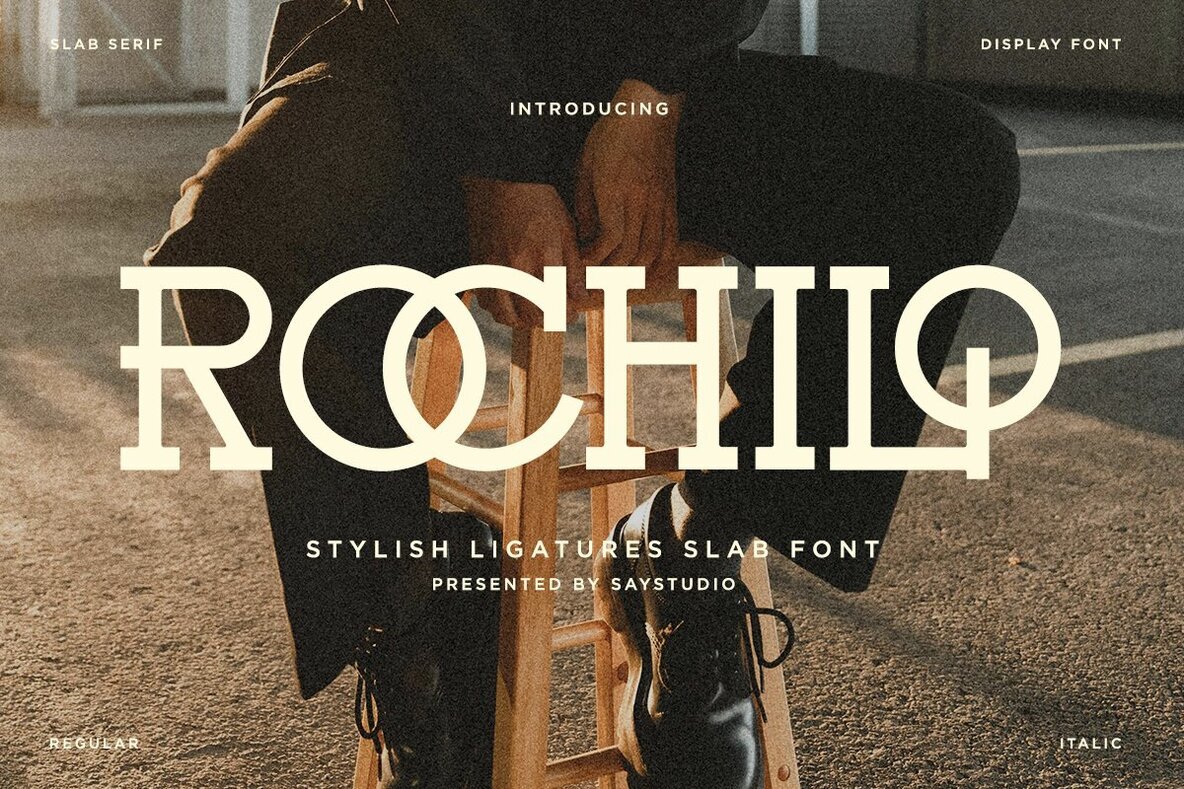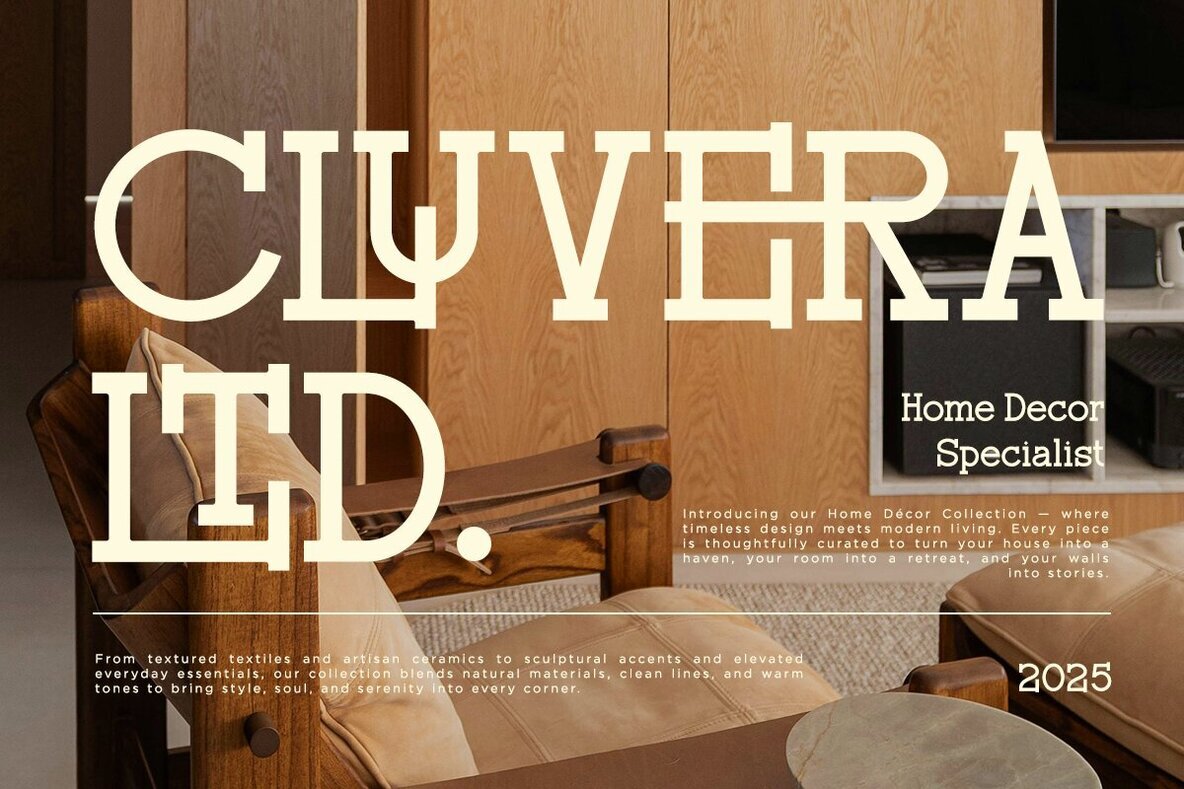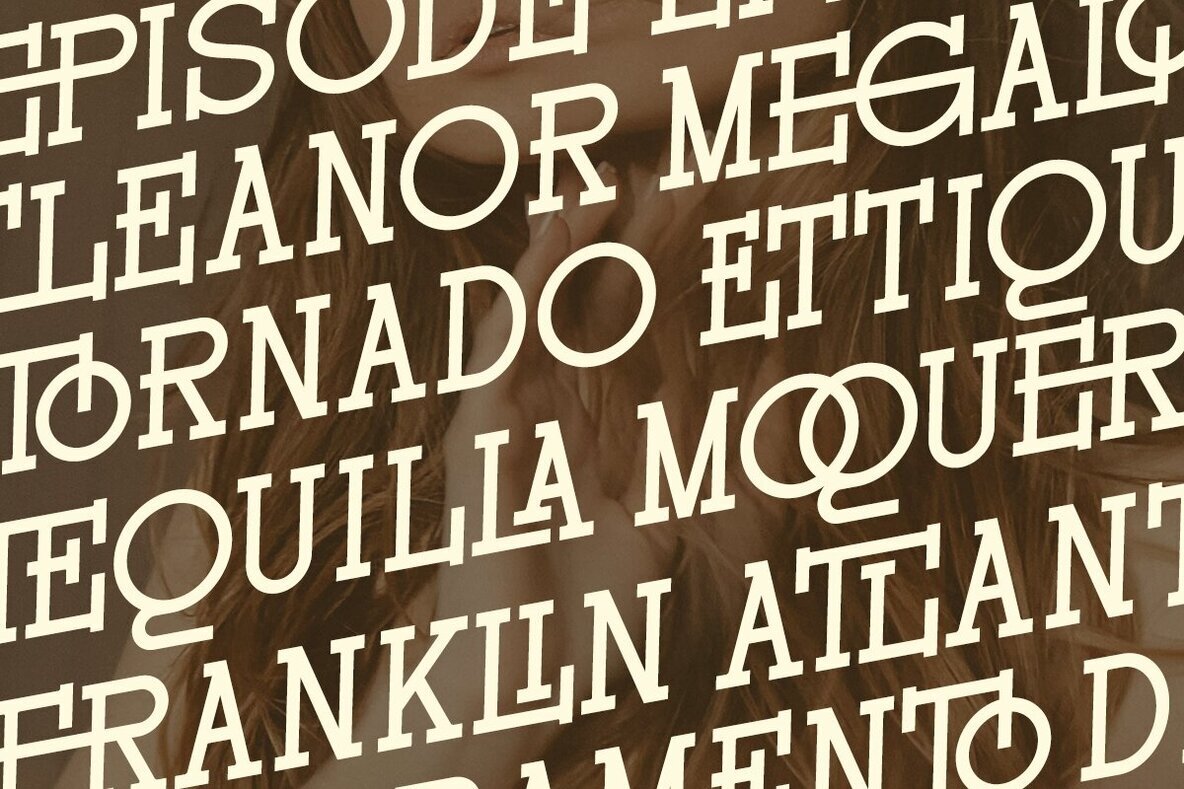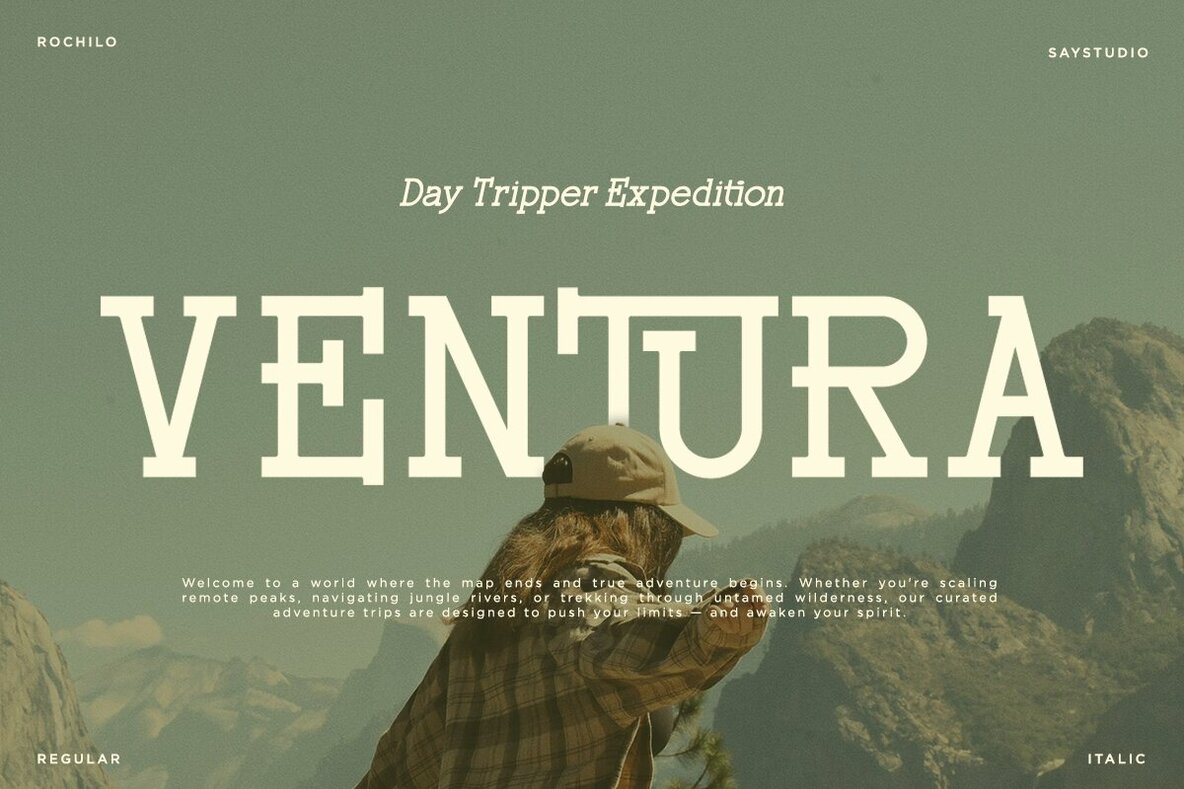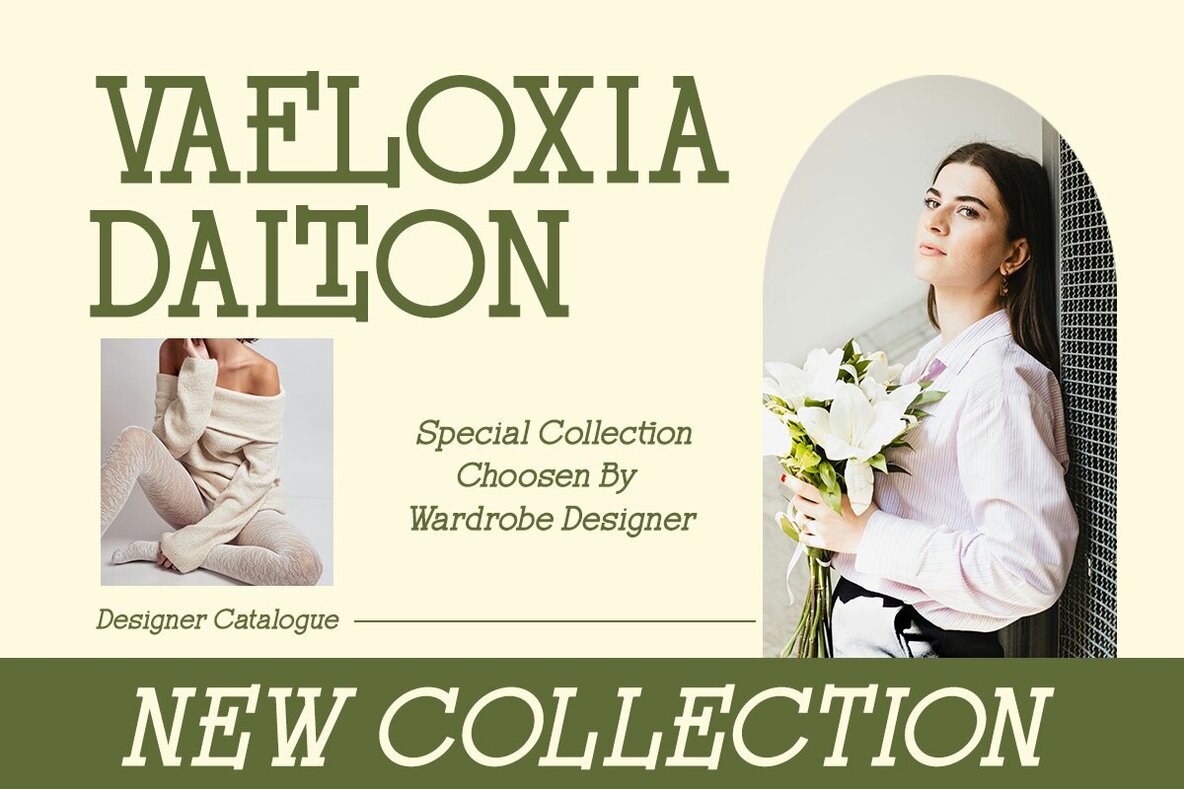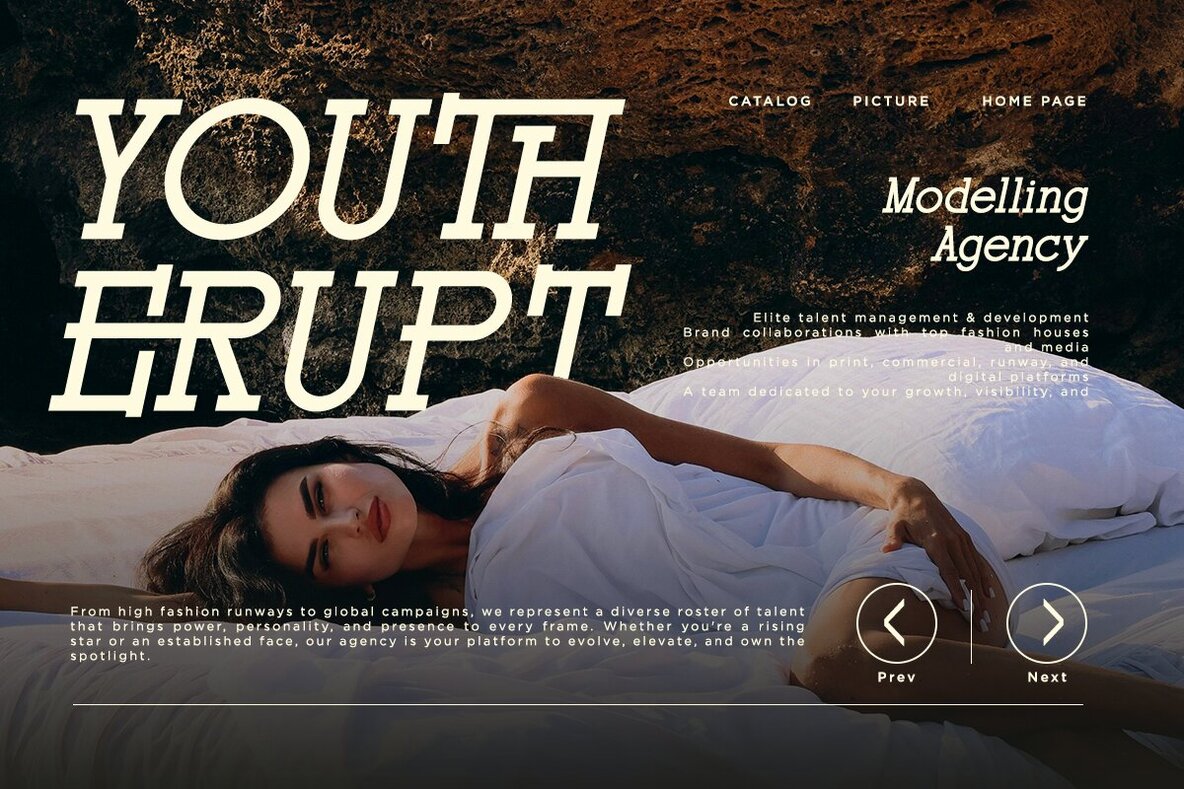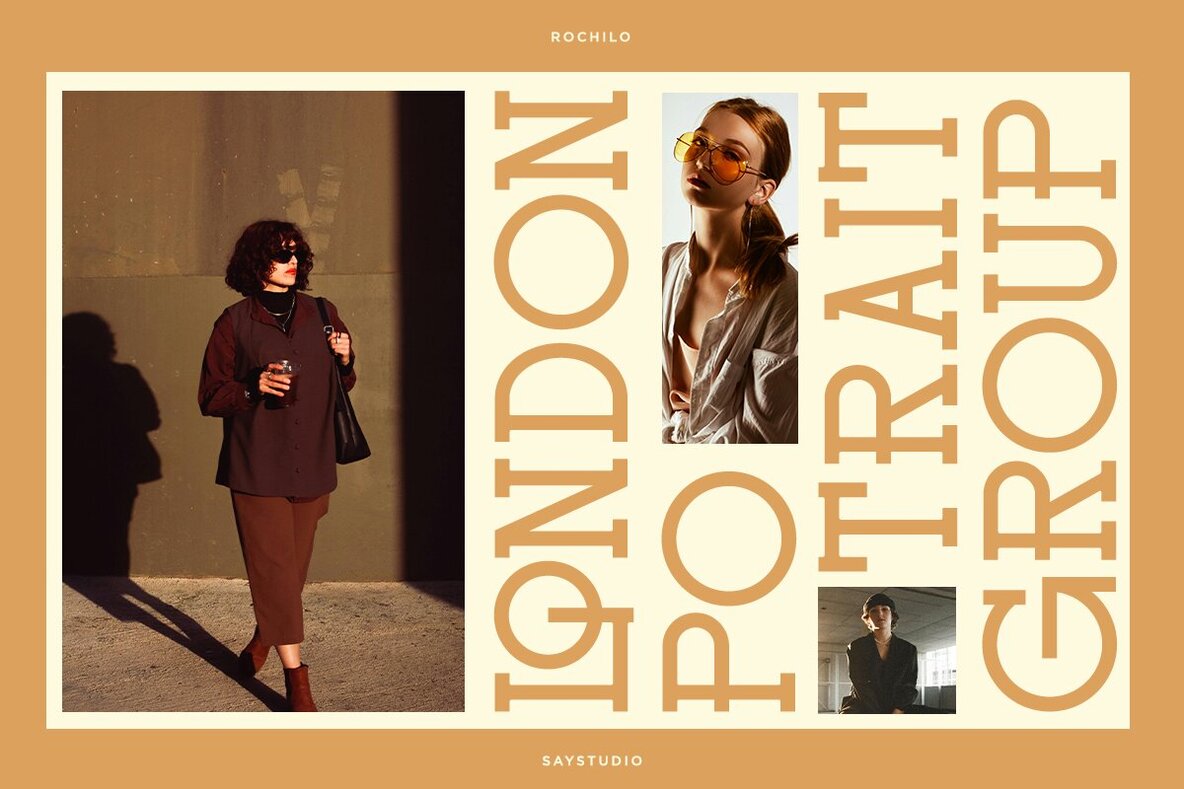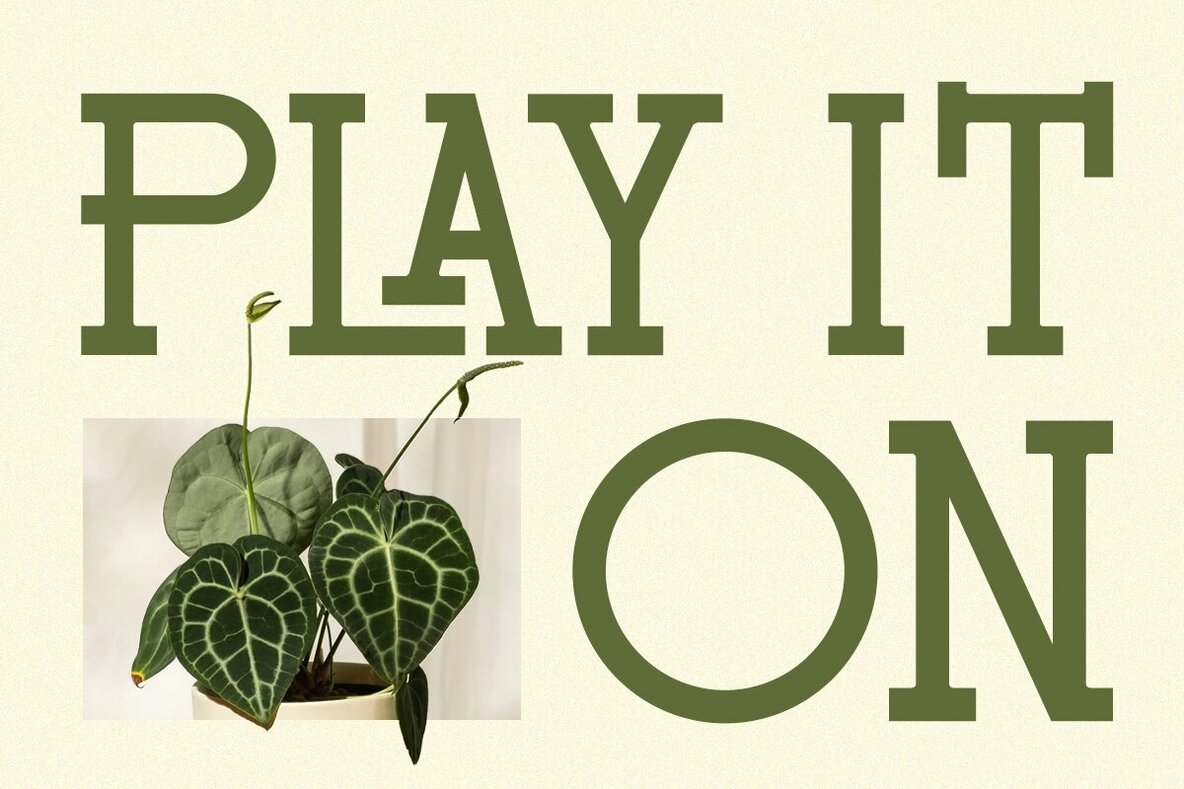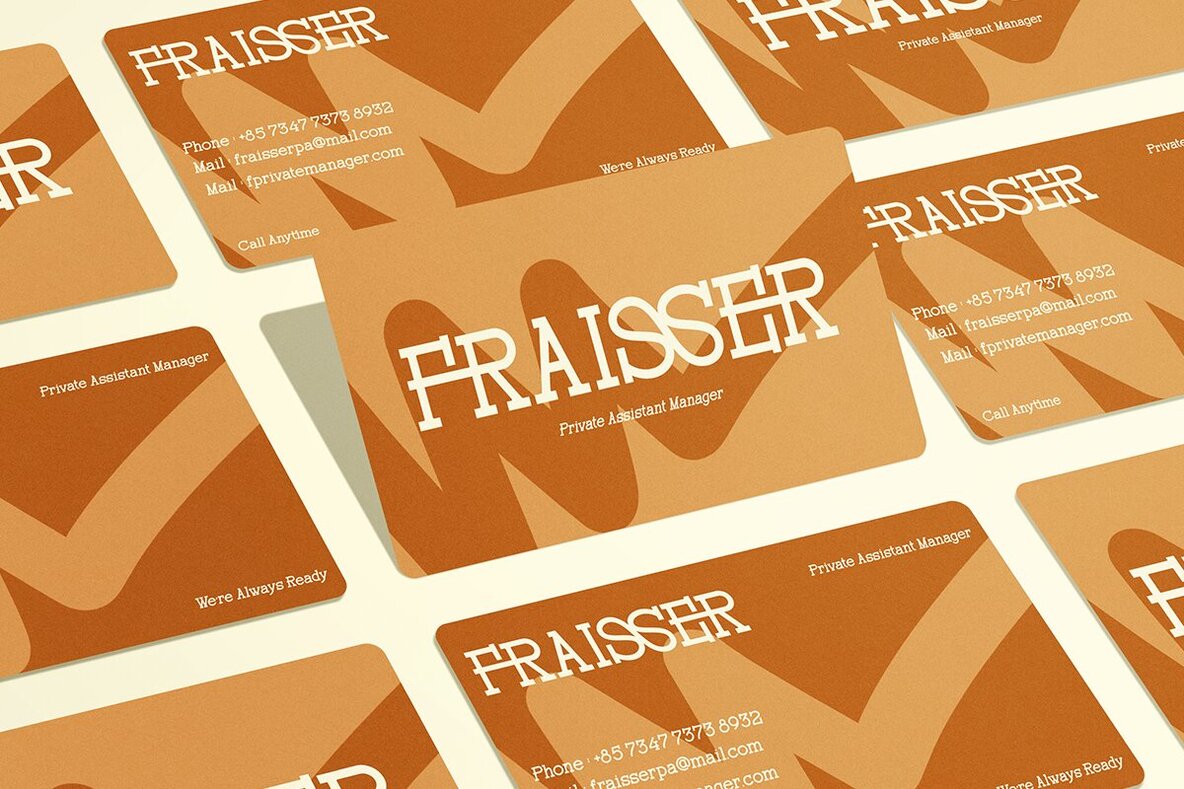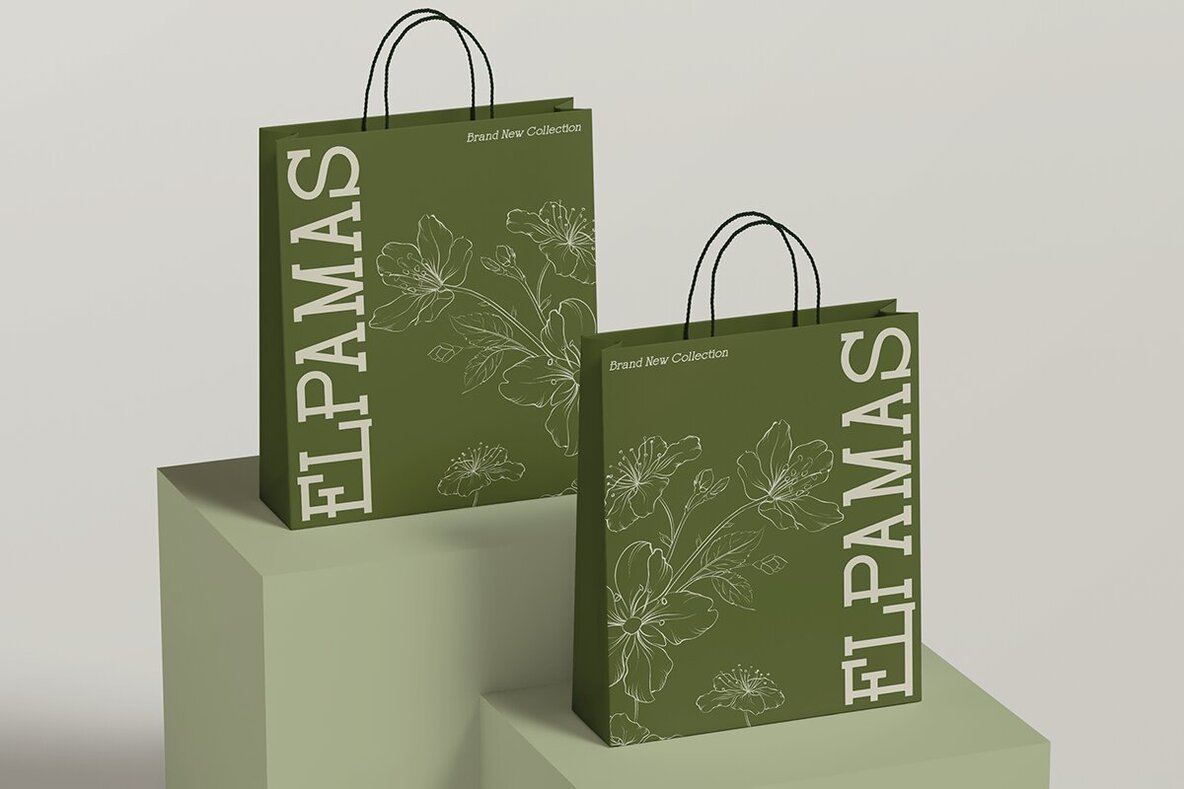
Rochilo Font
Characterized by its sleek lines and refined aesthetics, Rochilo is a slab serif font that gracefully marries the charm of traditional typewriters with modernity. Its elegant proportions and subtle slab features create a clean, slightly mechanical appearance, making it perfect for a variety of high-end visual projects. Whether used in branding, fashion editorials, or sophisticated packaging design, Rochilo imbues any project with sophistication and a touch of unique personality.Rochilo: Modern Slab Serif with Timeless Elegance